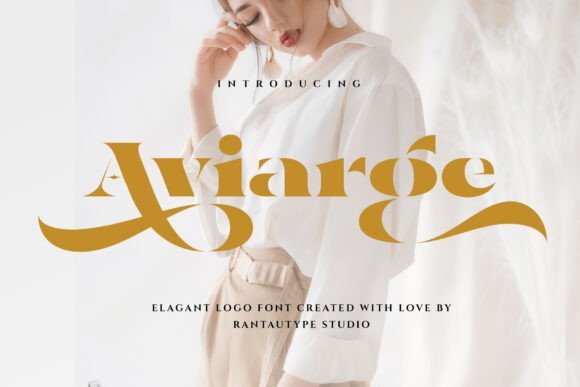
Introduction to Aviarge Font
Aviarge is an elegant and bold serif font.
Fall in love with its incredibly versatile style and use it to create gorgeous wedding invitations, beautiful stationary art, eye-catching social media posts, and much more .
Key Features of Aviarge Font
Why Choose Aviarge Font?
Aviarge Font offers exceptional quality and versatility, making it a valuable addition to your design toolkit. Whether you’re creating for personal projects or commercial use, Aviarge Font delivers professional results.